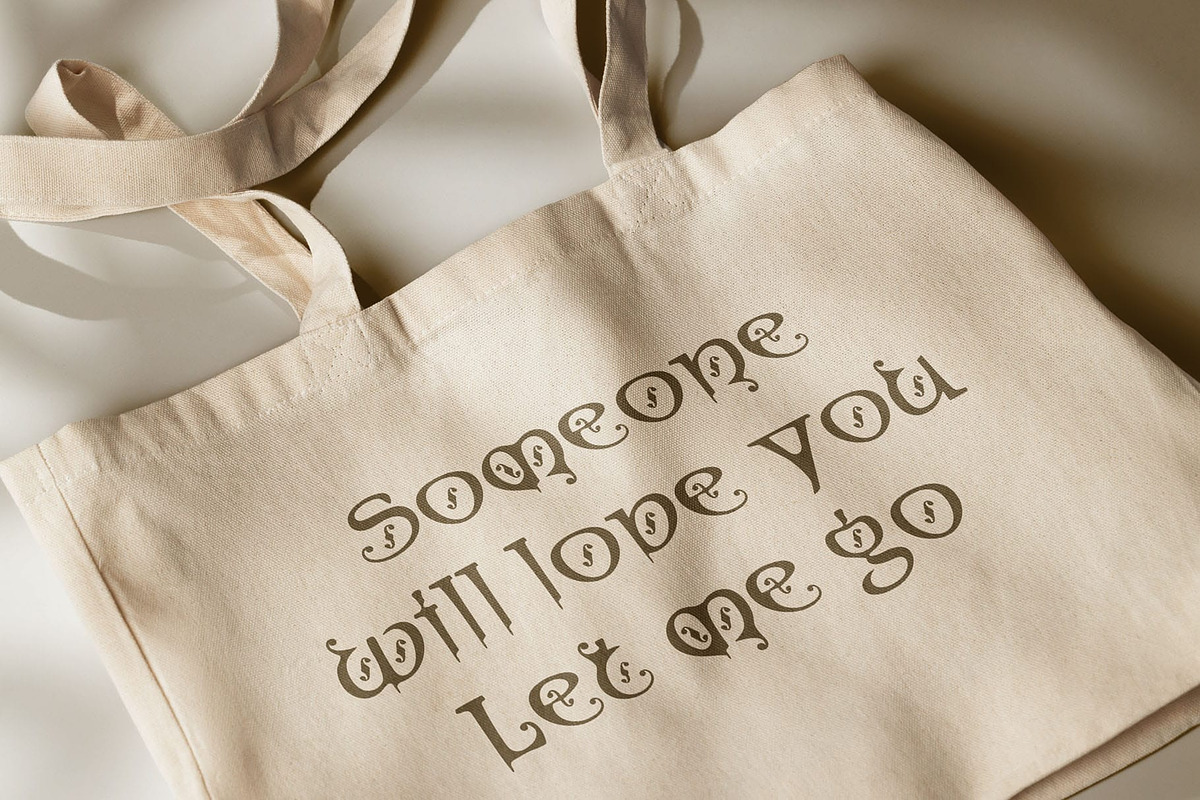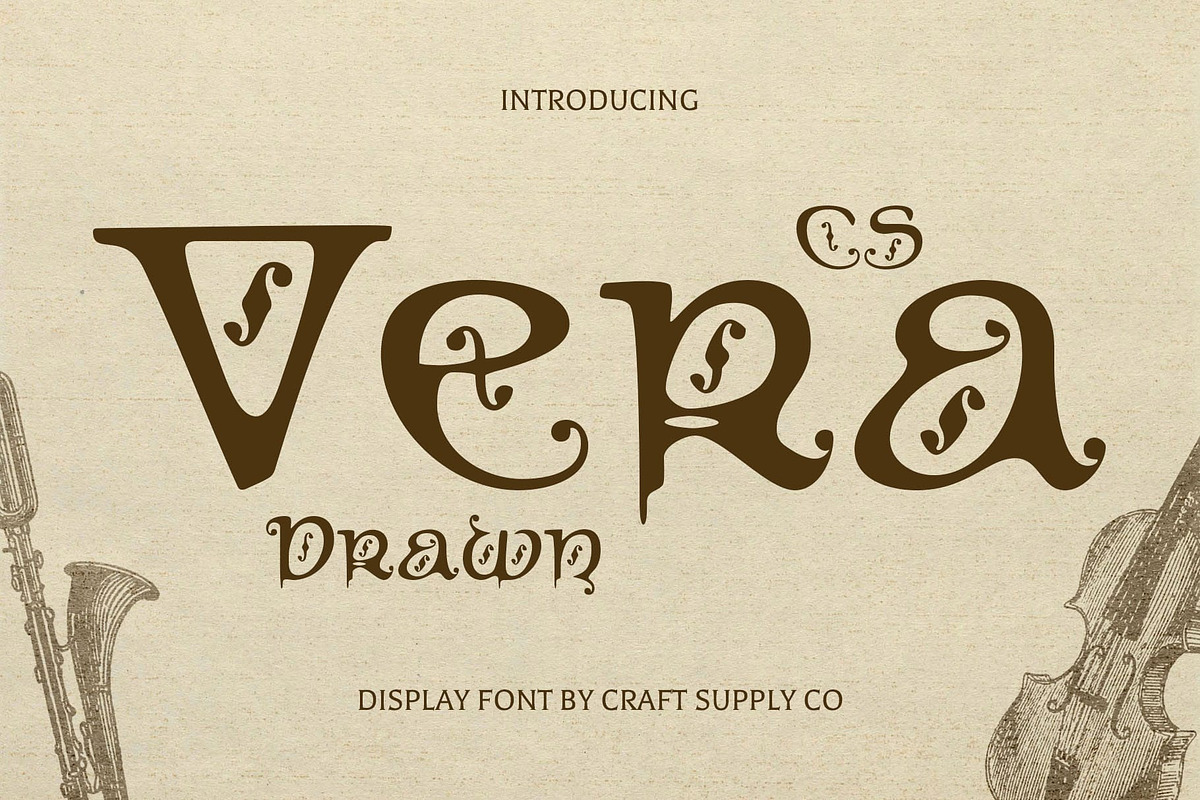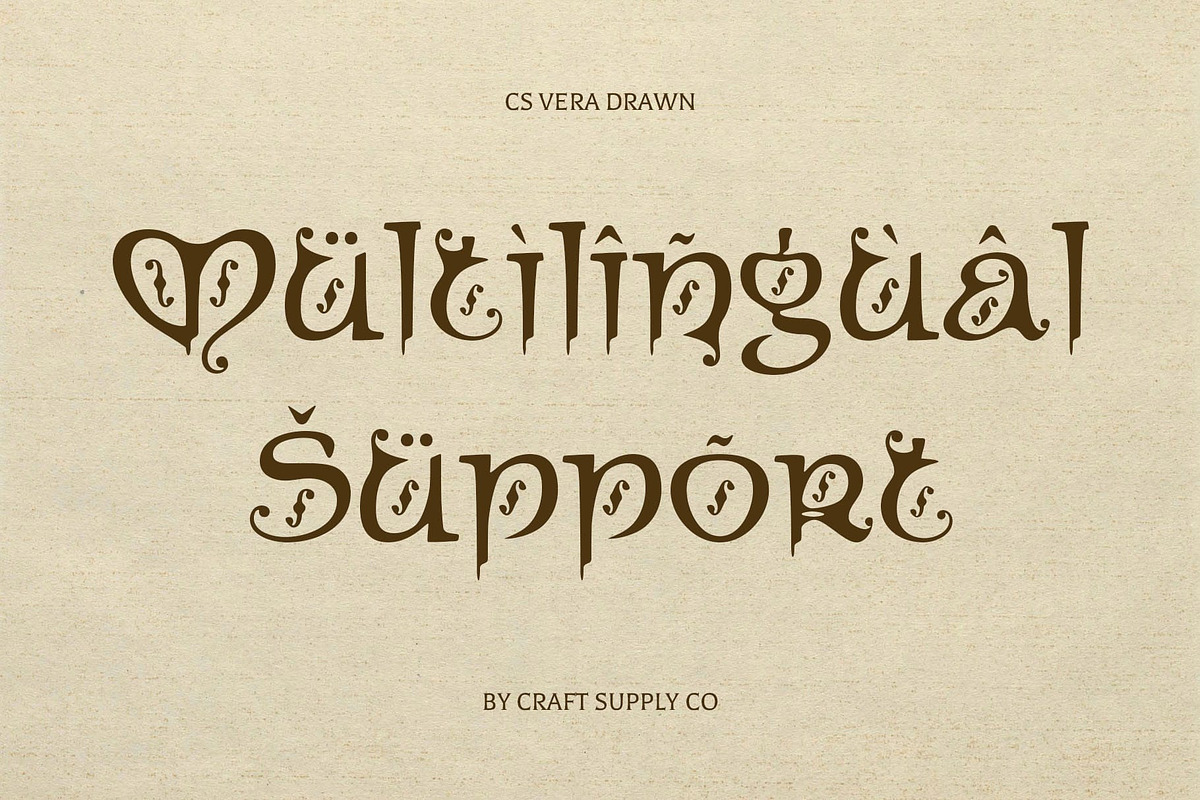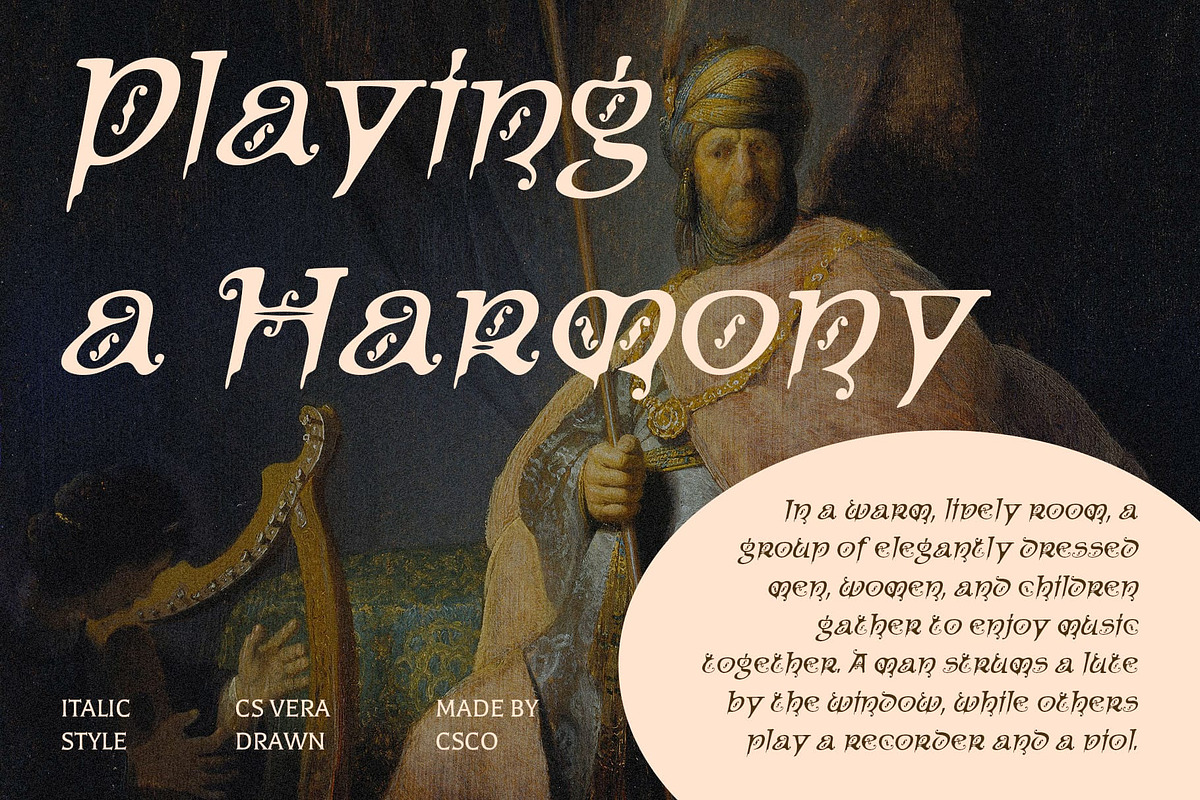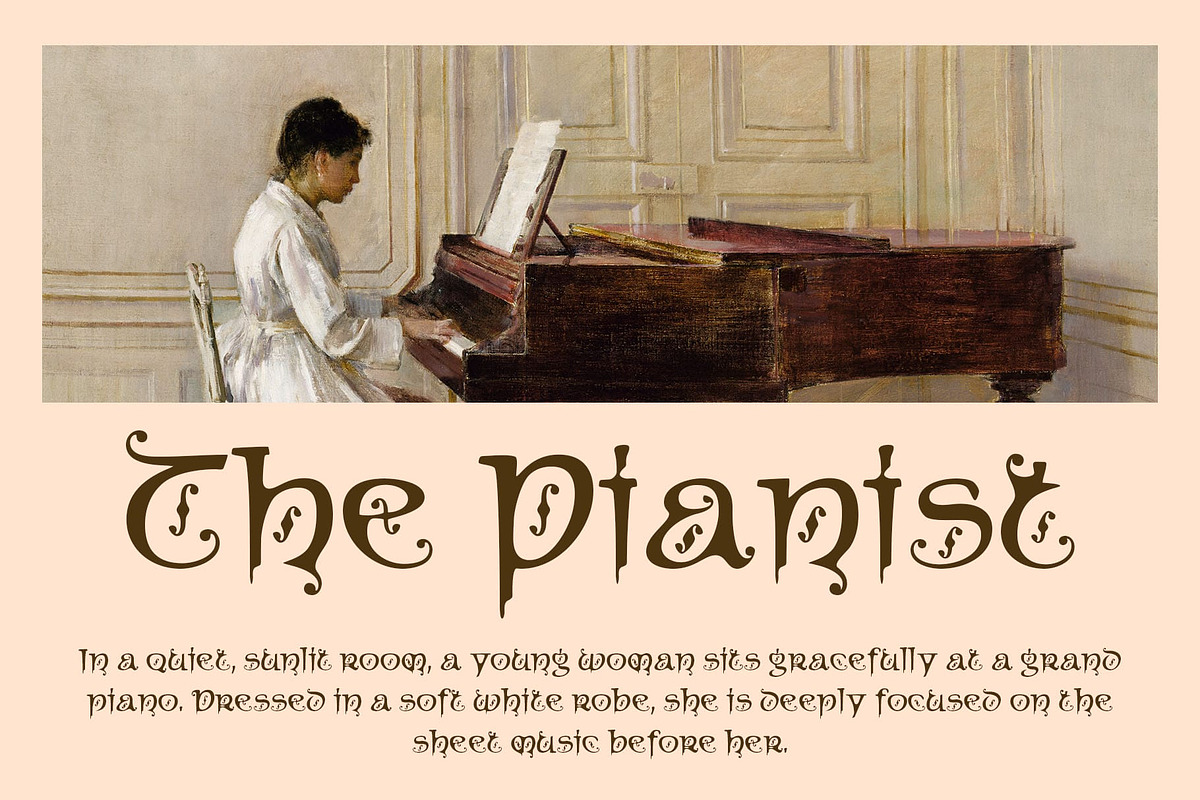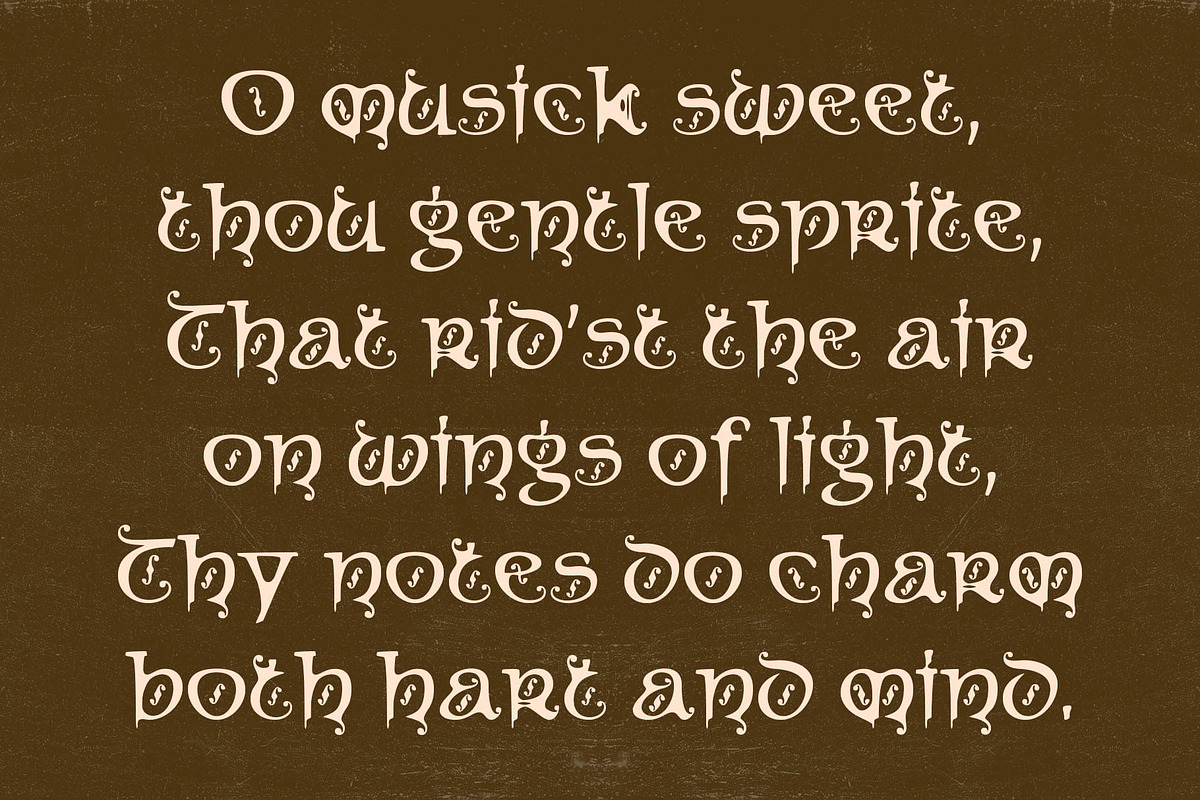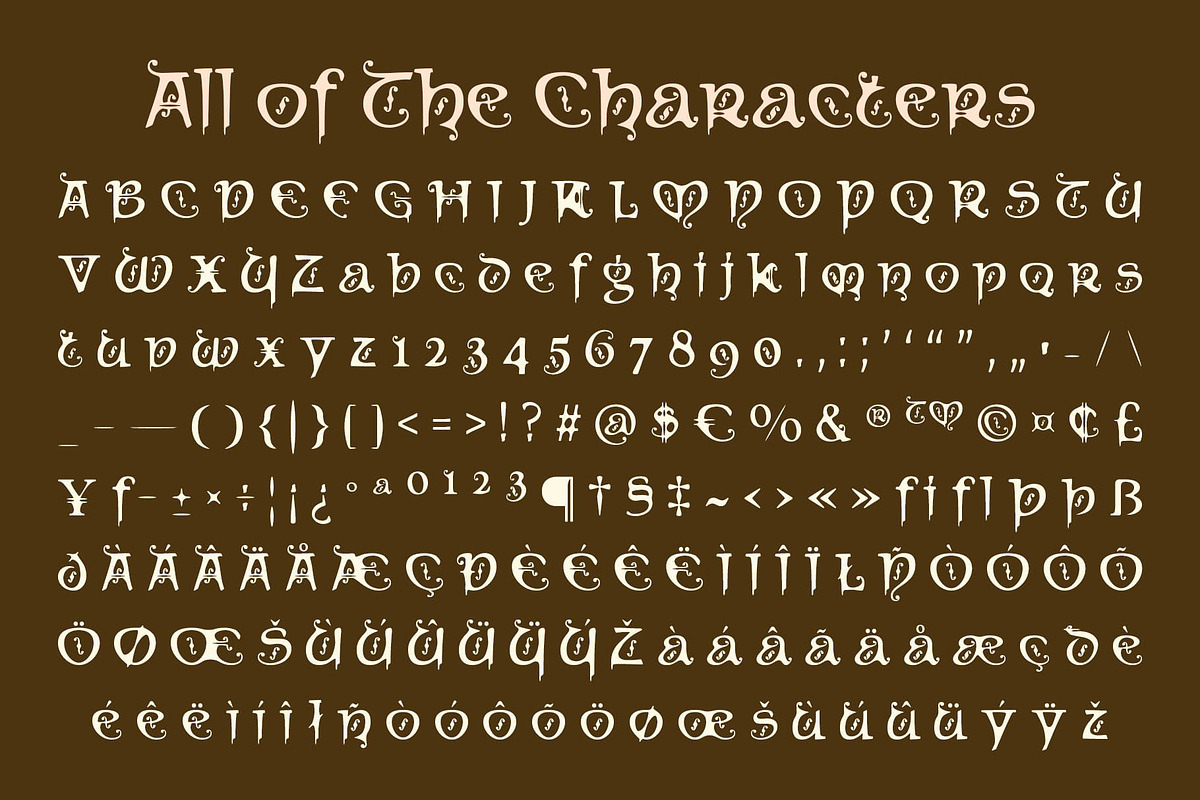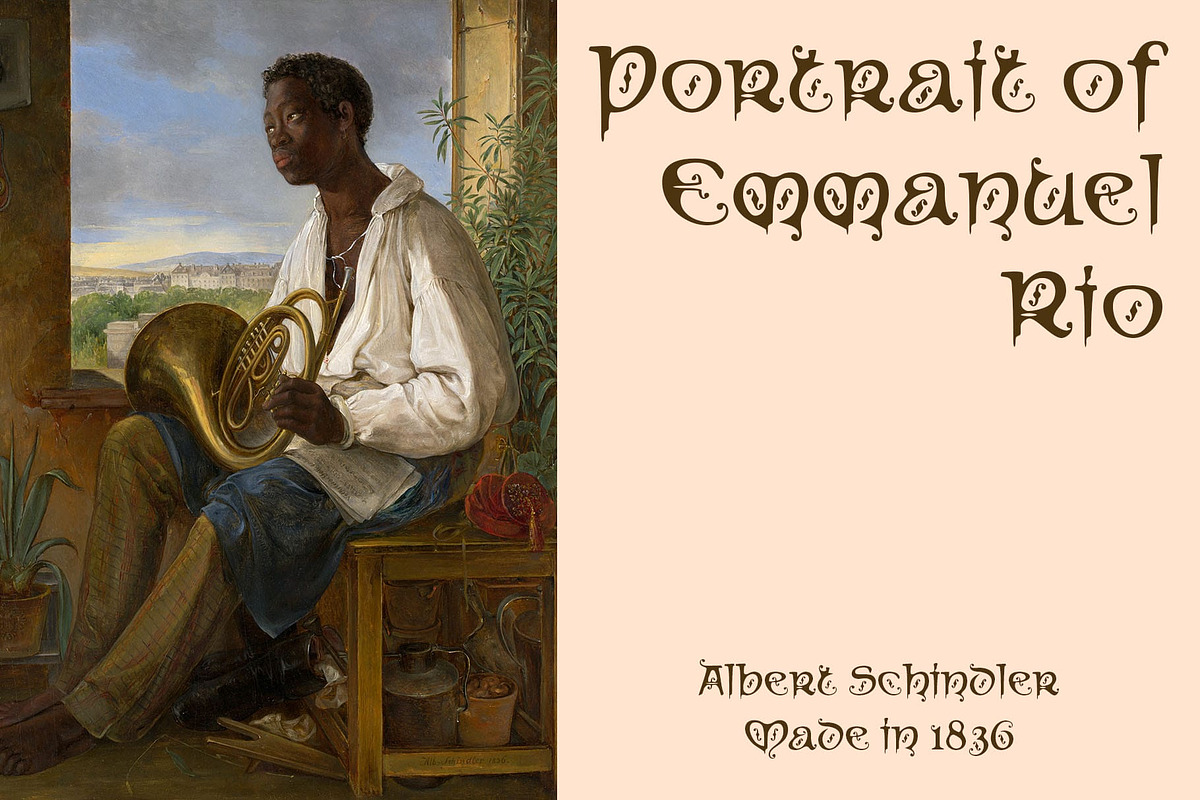
CS Vera Drawn
CS Vera Drawn – Serene Elegance with a Handmade Heritage
Flowing Letterforms Rooted in History CS Vera Drawn is a display typeface inspired by uncial script, echoing the rounded, open curves of medieval calligraphy. Its letterforms are smooth, wide, and gently flowing—bringing a sense of ancient grace into the modern visual world. This unique structure gives the font an elegant, poetic presence that stands out in both historical and contemporary themes.
Aesthetic Beauty with Feminine Grace The font’s overall tone radiates softness and sophistication, balanced by a quiet strength. Its rounded shapes and harmonious flow reflect a feminine, romantic aesthetic, making it ideal for projects that need to communicate warmth, calm, and charm.
Hand-Drawn Effect for Organic Texture Enhanced by a drawn effect, the font carries a handmade texture that adds visual depth and artistic personality. The slight imperfections from the sketch-like finish create a more natural, human feel, bridging the elegance of its form with a raw, expressive spirit. This handcrafted quality gives the font an authentic and emotionally rich character.
Perfect for Storytelling and Emotional Visuals This font blends antique elegance and is well-suited for beauty branding, romantic packaging, editorial features, and visual storytelling that needs to convey emotion, aesthetic care, and artistic intention. Its timeless silhouette, blended with contemporary handmade charm, makes it a versatile typeface for designers seeking to evoke both history and heart.